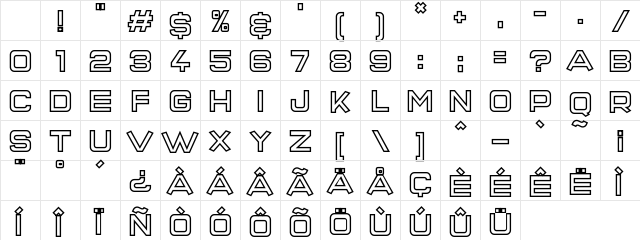
Complete Super Quick Formula Hollow Regular glyph index. Displaying only characters natively supported by Super Quick Formula Hollow Regular font.
Super Quick Formula Hollow is a composed and adaptable typeface that performs quietly and consistently across a wide range of design contexts.